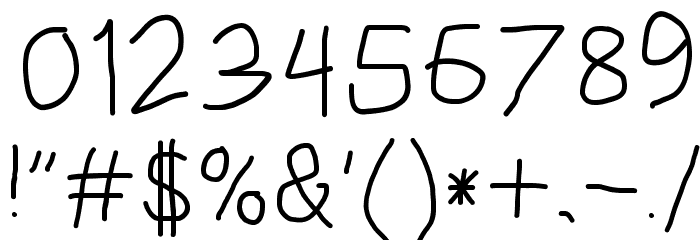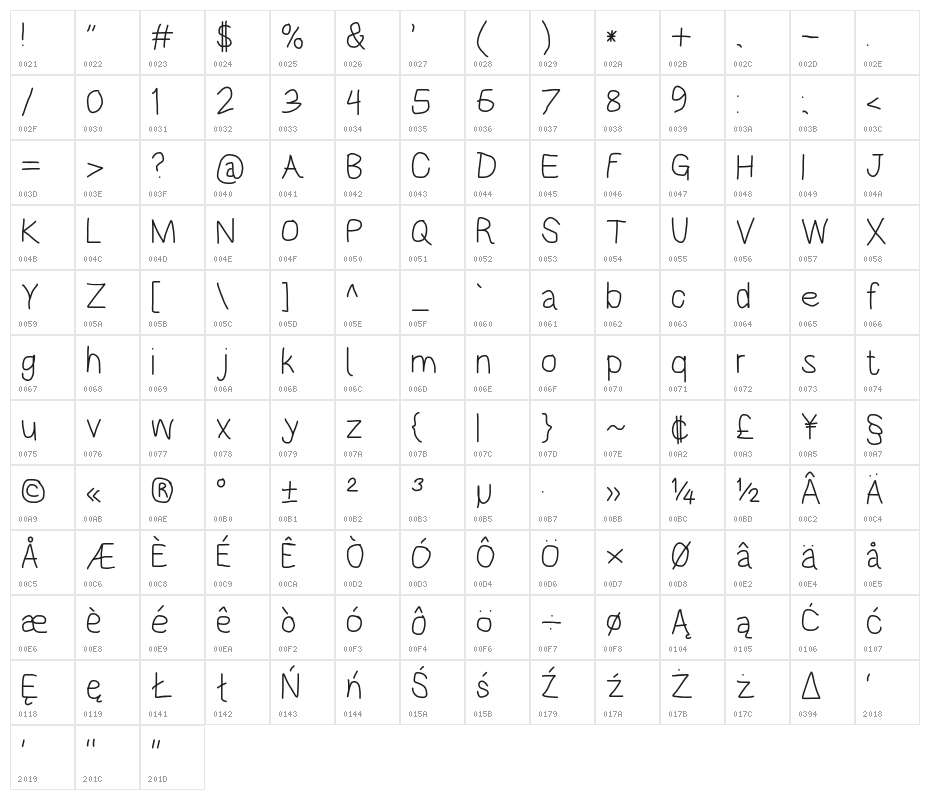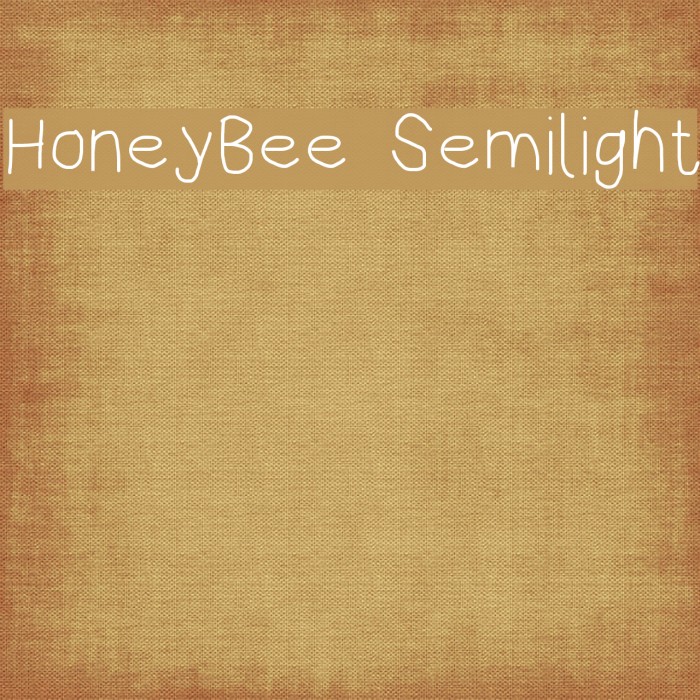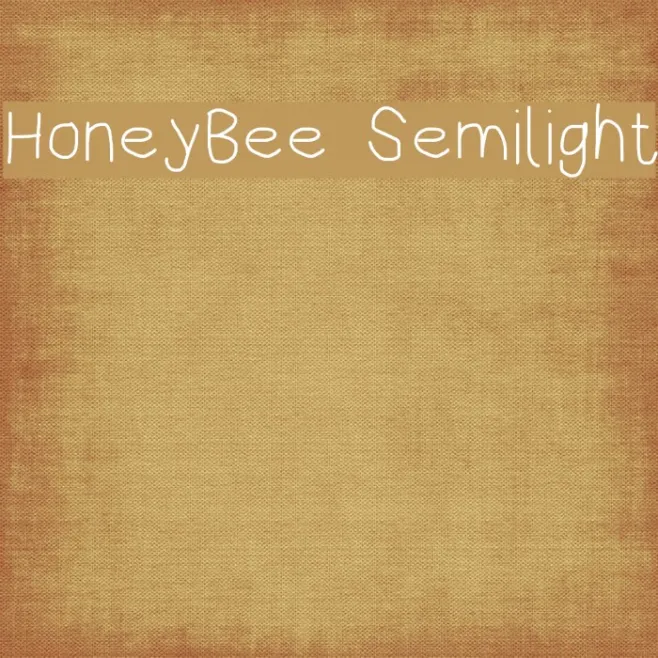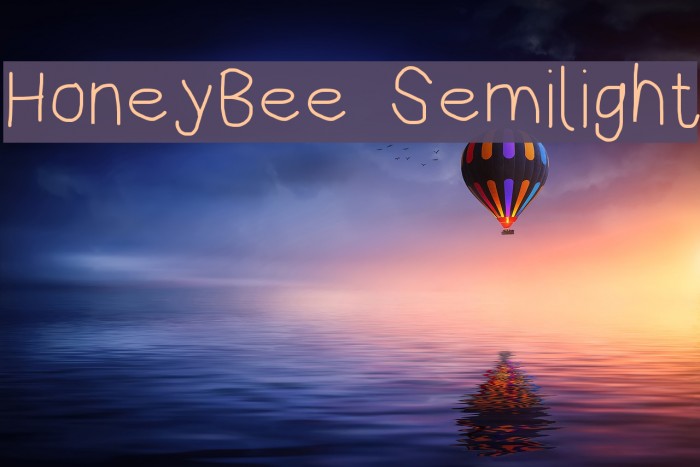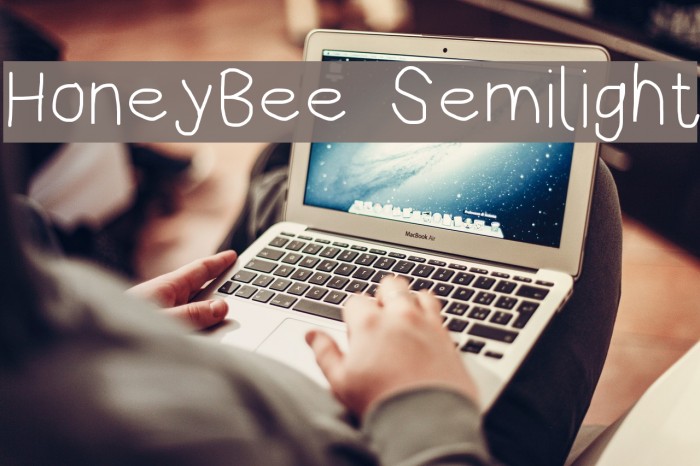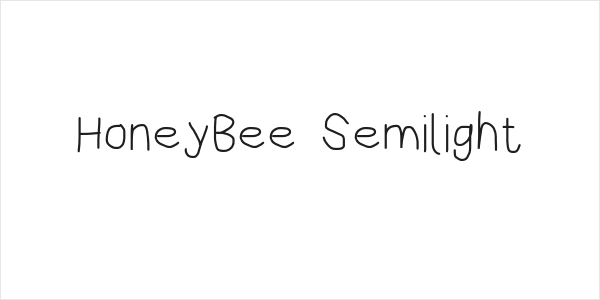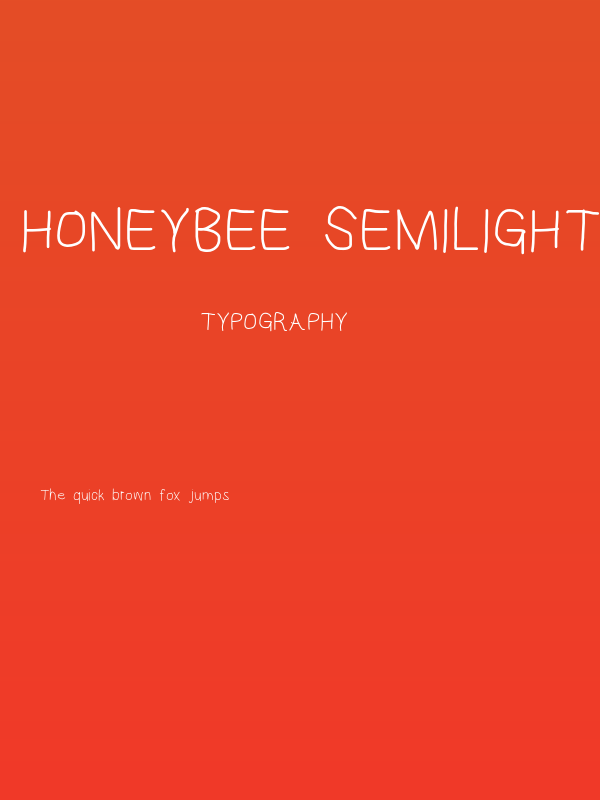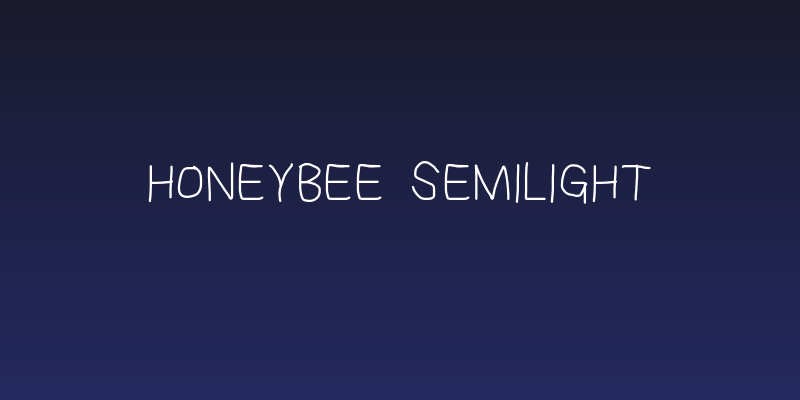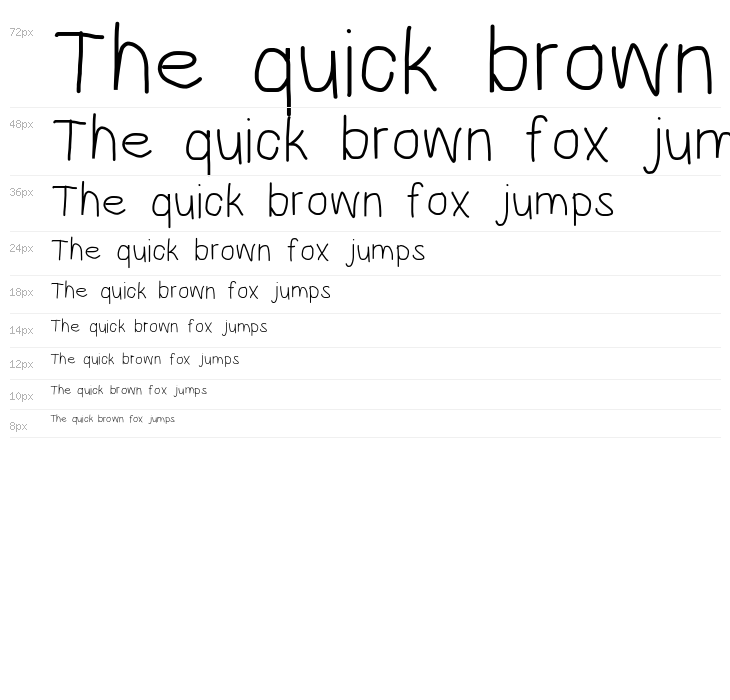
HoneyBee Semilight Font
HoneyBee Semilight Description
This font features a playful and informal handwritten style, characterized by its smooth curves and slightly irregular strokes. The letters have a casual, friendly appearance, making it ideal for projects that require a personal touch. The uppercase letters are slightly taller and more elongated, while the lowercase letters maintain a consistent height, adding to its legibility. The numerals are clear and distinct, matching the overall style of the alphabet. Special characters are included, maintaining the same playful aesthetic. The font's relaxed and approachable design makes it suitable for a variety of creative applications.
Overall StyleCasual
Use CaseHeadlines, Informal text, Creative projects
Proposed ProjectsIdeal for greeting cards, children's books, casual branding, and social media graphics.